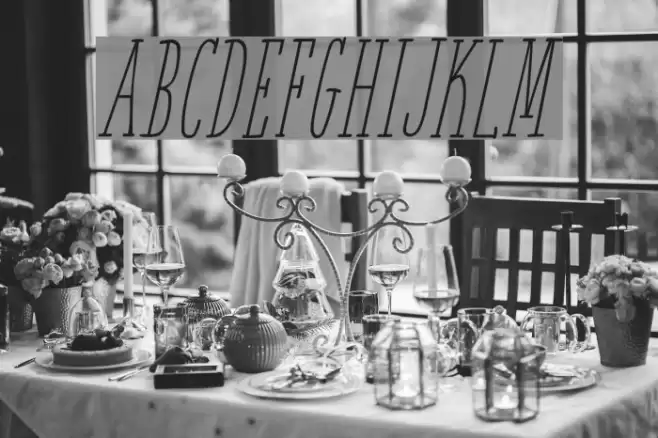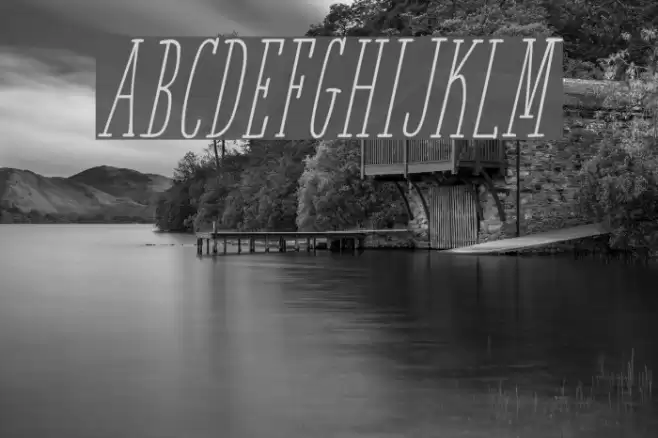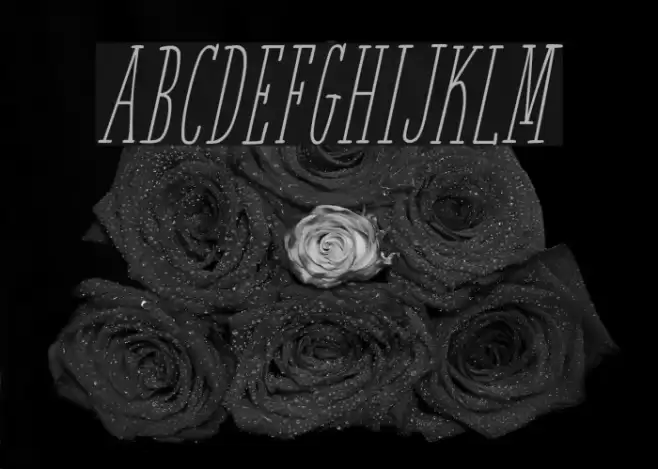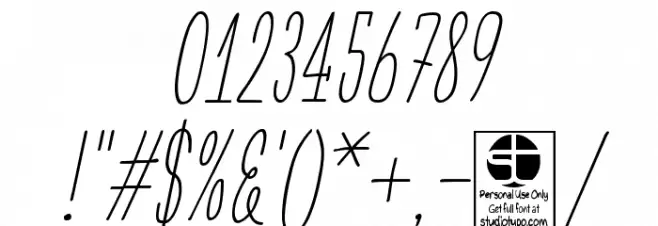
White Festive Italic Demo Font
White Festive Italic Demo Description
This font features a distinctive italic style with elongated, elegant letterforms that convey a sense of sophistication and grace. The characters are slightly condensed, enhancing their verticality and creating a sleek appearance. The strokes are thin, with a consistent weight that adds to the font's refined look. The uppercase letters are tall and commanding, while the lowercase letters maintain a harmonious flow. Numerals are clear and well-defined, matching the overall aesthetic. Special characters are included, maintaining the same elegant style, making this font versatile for various design needs.
An elegant, italic font with thin, elongated letterforms and a sophisticated style from Uncategorized fonts.
- Overall Style: Classic